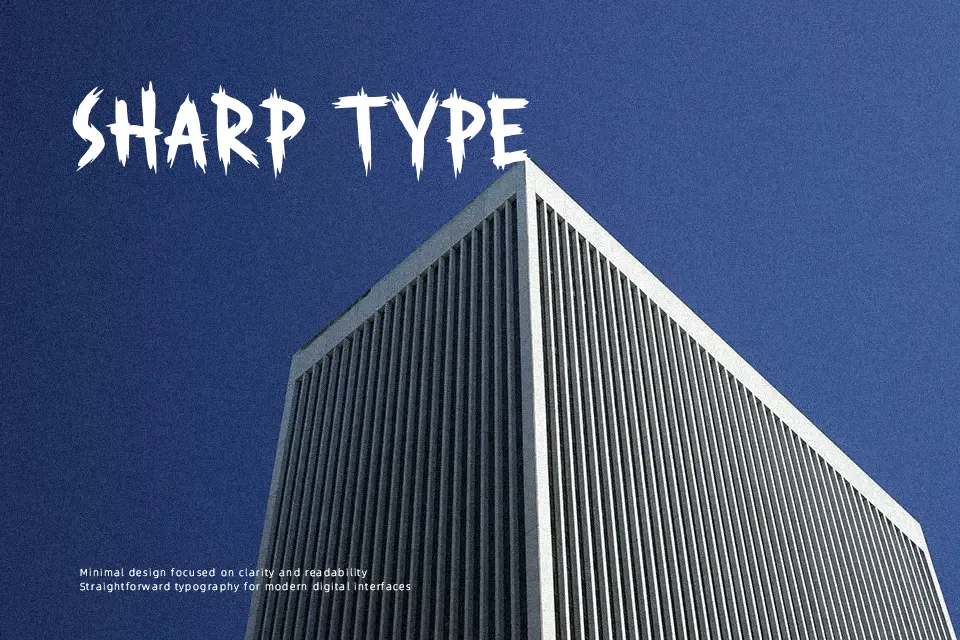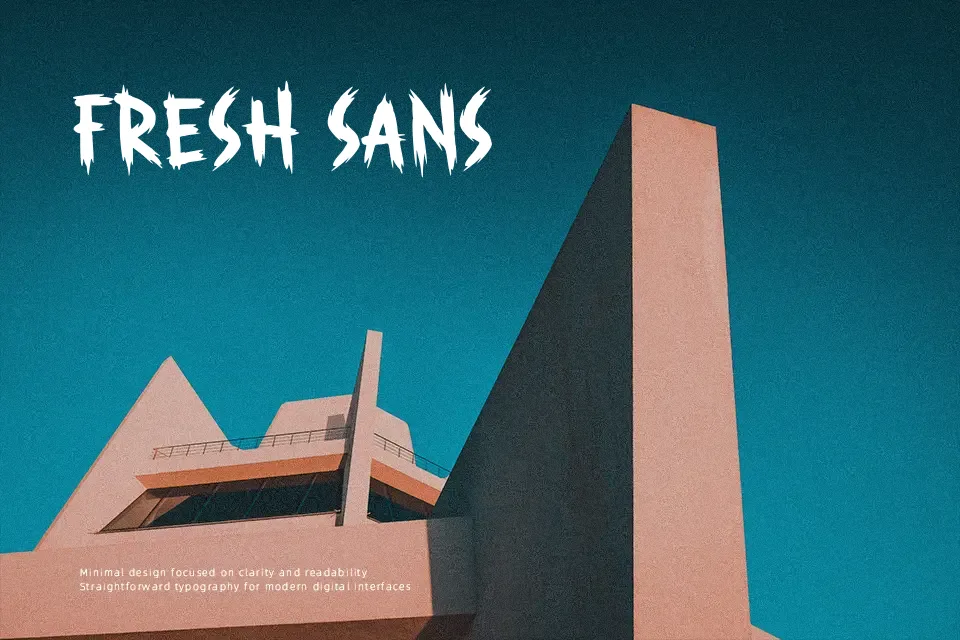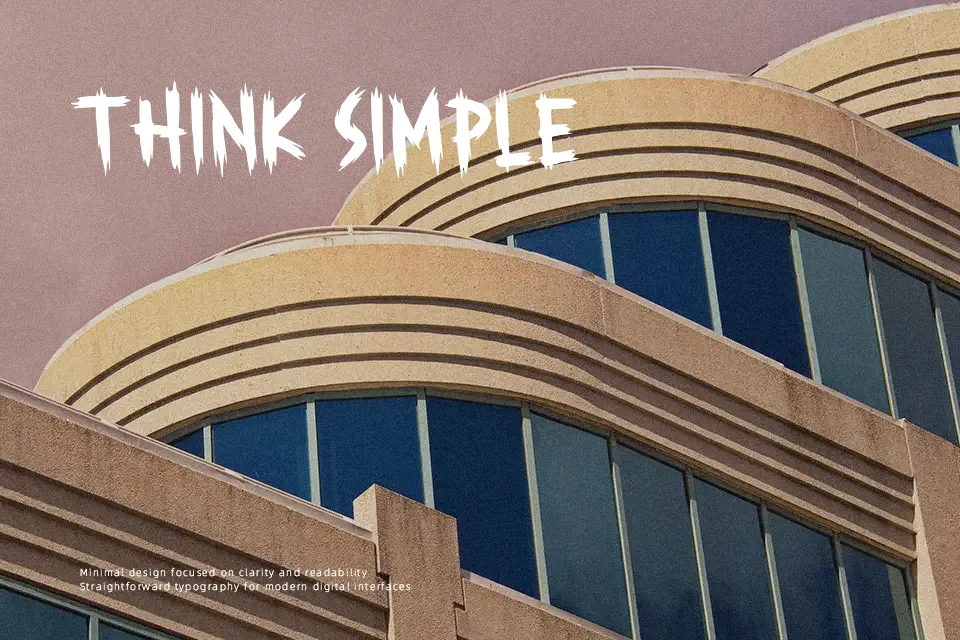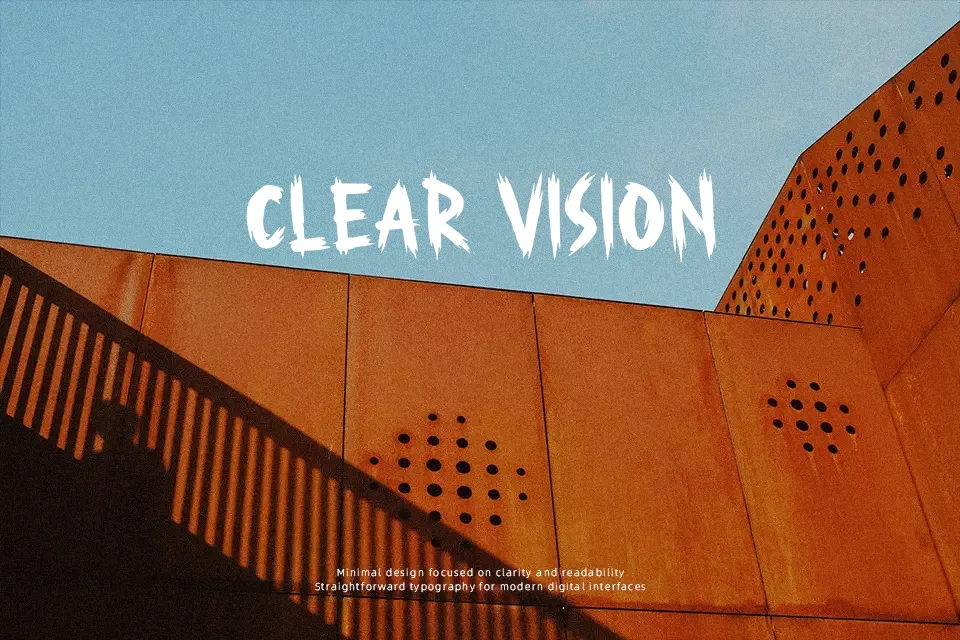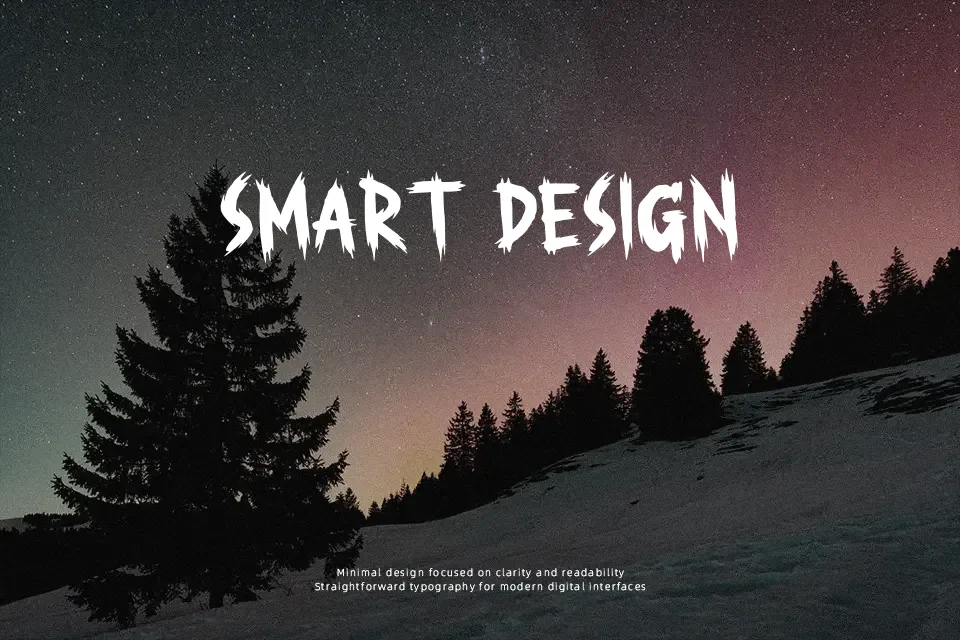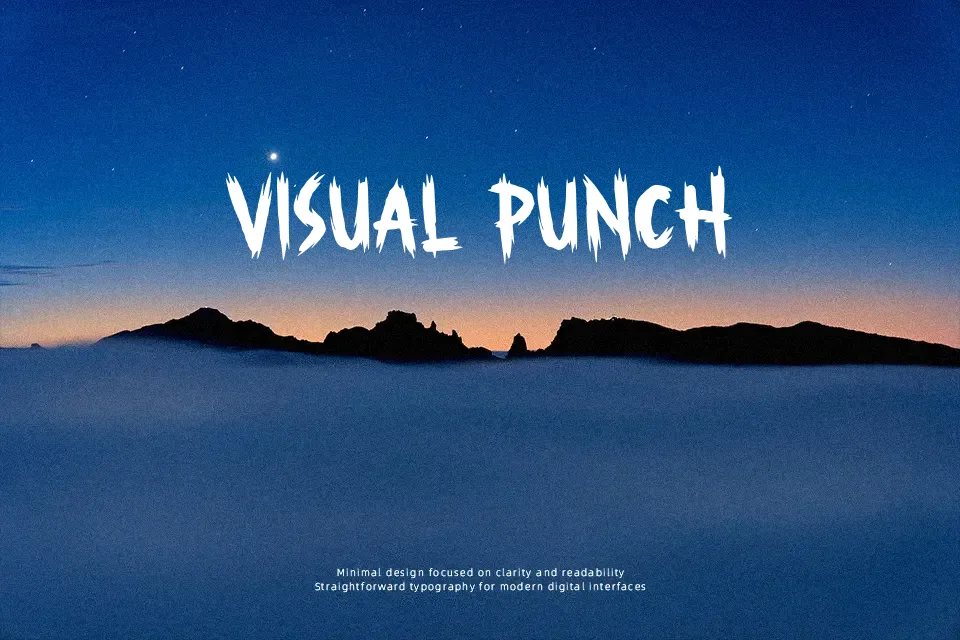
Scary Notes Font
Designed by Ditatype
Designed with raw energy, Scary Notes Font presents jagged letterforms built from uneven strokes, sharp angles, and jittery contours. The distressed structure creates high visual tension, while the generous spacing and varied baseline give each character an authentic, chaotic rhythm. In large display settings like escape room banners, horror book covers, and cinematic title cards, the typeface delivers immediate atmospheric impact. However, the heavy distressing and inconsistent glyph widths significantly reduce clarity in continuous body copy or small UI labels. For maximum visual tension, the design performs most effectively when restricted to punchy headlines and focal typography.
Best For: horror movie posters, Halloween event flyers, escape room signage, thriller book covers
Not Ideal For: continuous body text, mobile interface labels, corporate annual reports, dense editorial layouts
Perfect for film, gaming, and halloween, with a dark and decorative style.